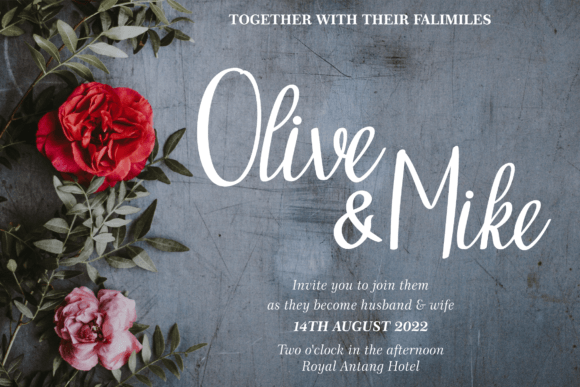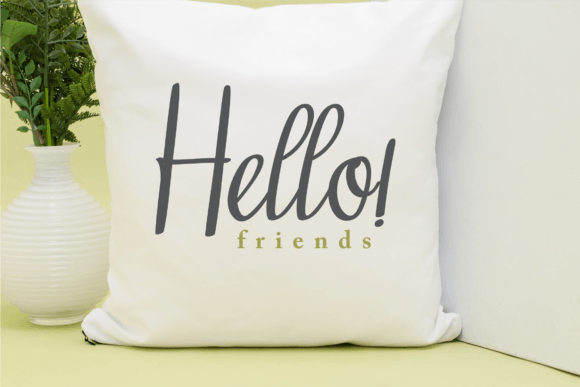
Romantic Script Font – Knowledge
Looking for a romantic script font that brings emotion and elegance to your designs? Meet Knowledge, a beautifully crafted handwritten font made for heartfelt and expressive creations. Whether you’re designing a love note or an eye-catching headline, this font will add a graceful and emotional touch to your projects.
Why Choose a Romantic Script Font Like Knowledge?
Fonts have the power to communicate feeling—and Knowledge does exactly that. It blends the fluidity of cursive handwriting with the refinement of calligraphy. This makes it an ideal choice for designers, crafters, and creators looking to deliver warmth, charm, and personality.
Versatile Usage in Creative Projects
🎨 Greeting Cards & Invitations
Whether it’s Valentine’s Day, a wedding, or a baby shower, Knowledge adds a personal and intimate vibe. The smooth strokes and artistic curves of this romantic script font elevate every message.
🖥️ Digital Design & Branding
From social media graphics to digital scrapbooking, Knowledge fits effortlessly into modern branding. Use it for Instagram quotes, YouTube thumbnails, or branding kits where a soft, emotional tone is needed.
🖨️ Printables & DIY Crafts
This romantic script font is also ideal for crafting printable downloads. Think wall art, planners, or stickers. You can also use it with cutting machines like Cricut and Silhouette for physical crafting projects.
With this romantic scriptfont, you can create:
Personalized invitations
Elegant quotes for digital planners
Decorative logos for boutique brands
Feminine apparel designs
Downloadable art prints for Etsy and similar platforms
Its balance of style and simplicity makes it suitable for both professional and personal use.
Add a Romantic Flair to Your Typography
The Knowledge romantic scriptfont isn’t just beautiful—it’s functional. It performs well at various sizes, retains readability, and adds character to every word it touches. If you’re searching for a downloadable font that combines beauty with versatility, this is the one to pick.